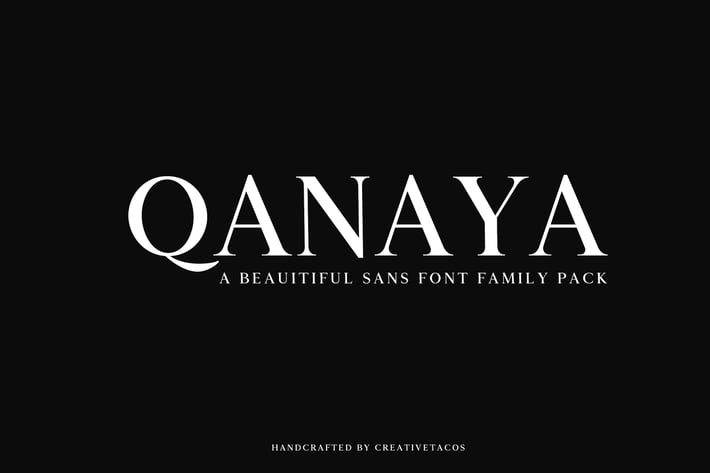
Qanaya Serif Font Family Pack
Qanaya is a brand new beautiful rounded serif font family with wide choice of weights. It includes all basic glyph with multilingual support. Qanaya can be used for logo, greeting cards, posters, branding, name card, stationary, design title, blog header, quotes, typography, headlines, packaging, presentations, titles, magazines, headings, web layouts, advertising, invitations, packaging design, books, and nearly any creative design.
- Font Weight: Regular, Round and Bold
Qanaya Font Features:
- Uppercase Letters
- Lowercase Letters
- Non English Characters ( Latin Supplement + Latin Extended A)